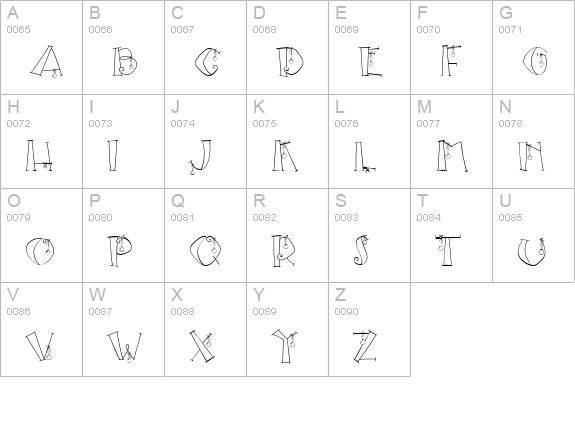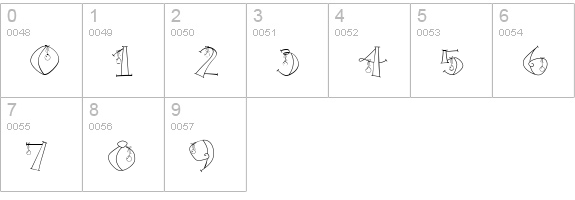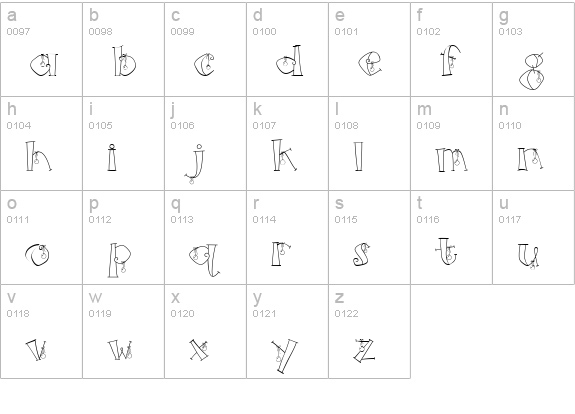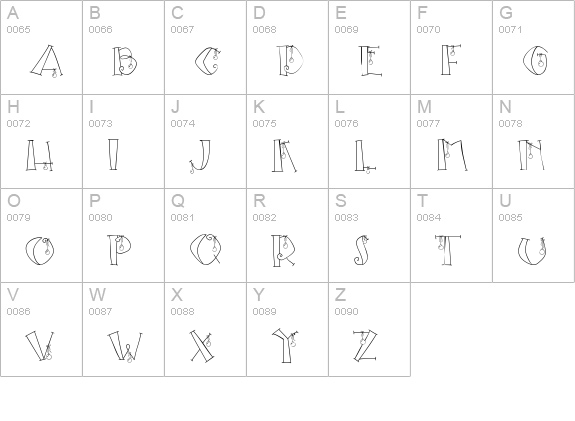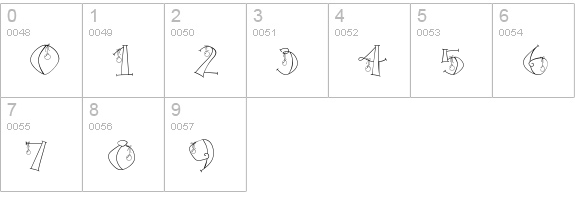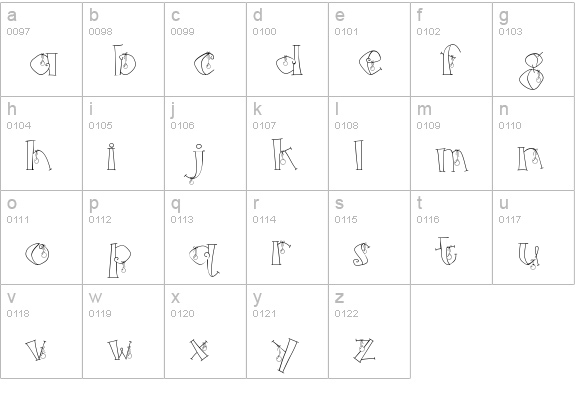
The CK Ornament font is a beautifully crafted typeface that exudes elegance and sophistication. With its intricate details and ornate design, this font is perfect for adding a touch of class to any project. Whether you're designing invitations, packaging, or branding materials, CK Ornament will surely make a statement. What makes this font even more appealing is that it is available for free download at FontsMarket.com. Yes, you read that right - this stunning font can be yours at no cost! Don't miss out on the opportunity to enhance your designs with the timeless beauty of CK Ornament. Download it now and elevate your creations to the next level.